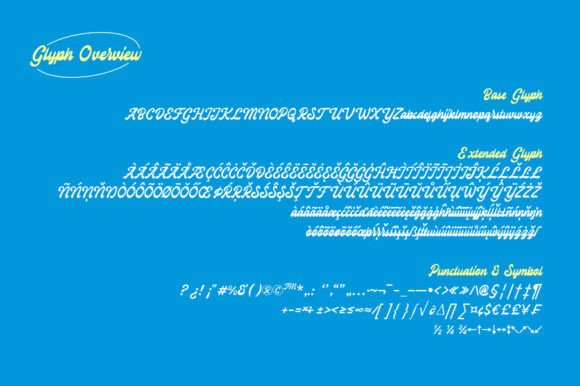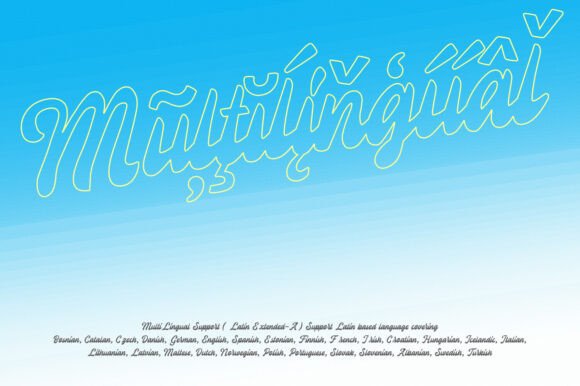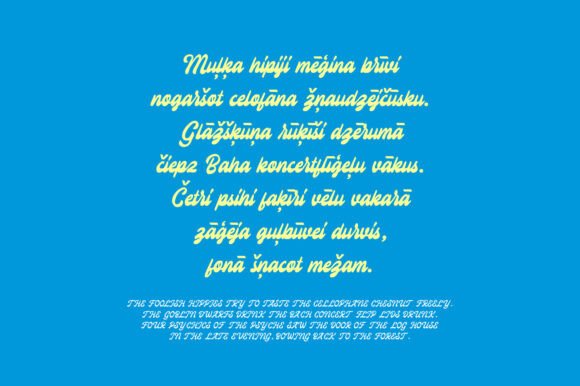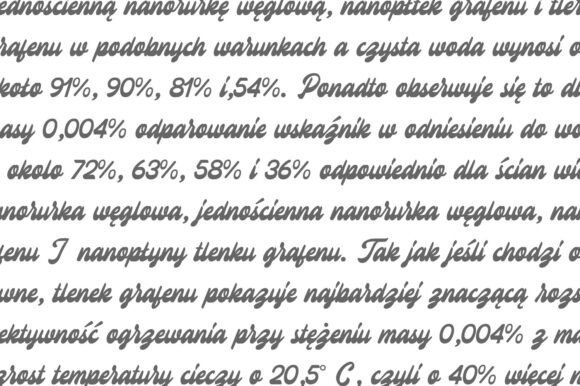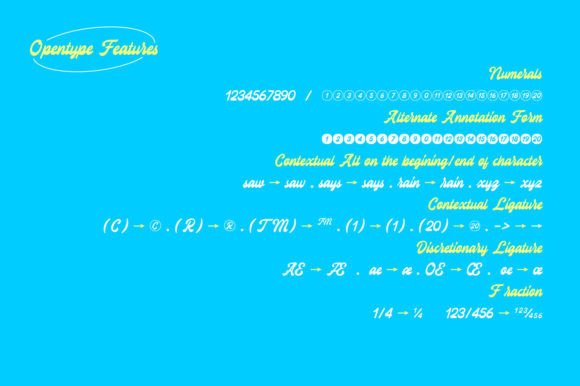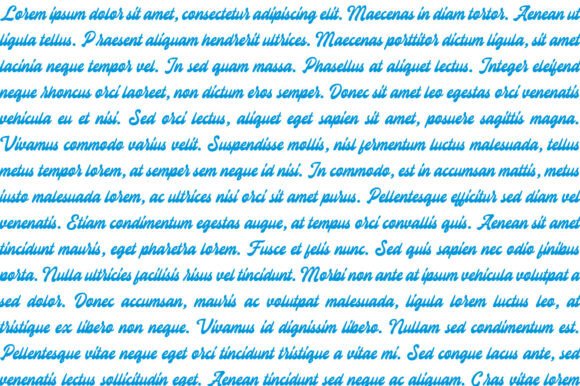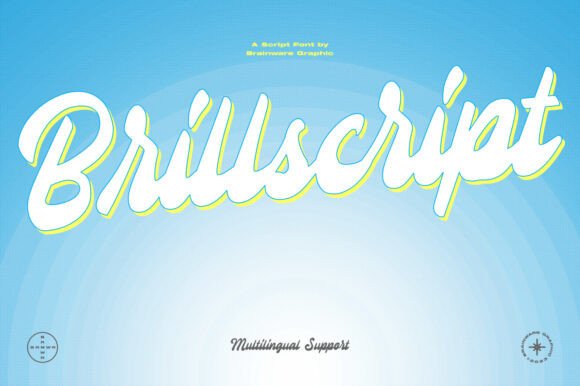
Discover the Charm of Brillscript Font: A Vintage-Style Handwritten Classic
In the world of typography, few fonts manage to capture the essence of nostalgia and classic charm as effectively as Brillscript. This vintage-style handwritten font has become a favorite among designers and crafters alike, and for good reason. Brillscript exudes a timeless appeal that is perfect for projects requiring a touch of retro sophistication. Whether you’re creating vintage-themed invitations, logos, packaging, or signage, Brillscript is the ideal choice for adding a dash of elegance and authenticity to your designs.
The Beauty of Old-Fashioned Penmanship
Brillscript’s unique charm lies in its ability to combine the beauty of old-fashioned penmanship with a sense of authenticity. The font’s intricate strokes, flowing connections, and carefully crafted letterforms evoke a sense of nostalgia, transporting us back to an era of handwritten letters, vintage posters, and classic typography. With Brillscript, you can add a personal touch to your designs, making them feel both historic and timeless.
Perfect for Vintage-Themed Projects
Brillscript’s vintage appeal makes it an excellent choice for a wide range of projects, including:
- Vintage-themed invitations: Create beautiful, one-of-a-kind invitations for weddings, parties, and special events that exude a sense of nostalgia and sophistication.
- Logos and branding: Add a touch of classic charm to your brand’s identity with a custom logo that incorporates Brillscript’s elegant, handwritten style.
- Packaging and product design: Give your products a unique, retro flair with Brillscript, perfect for food labels, wine bottles, and other specialty items.
- Signage and display: Create eye-catching signs, posters, and displays that showcase Brillscript’s beautiful, flowing script.
Why Designers and Crafters Love Brillscript
So, what makes Brillscript a favorite among designers and crafters? Here are just a few reasons:
- Unique and distinctive: Brillscript’s vintage style sets it apart from more modern, generic fonts, adding a touch of personality to your designs.
- Highly versatile: Whether you’re creating digital or print materials, Brillscript adapts seamlessly to various design applications.
- Elegant and sophisticated: Brillscript’s classic charm makes it perfect for projects requiring a level of sophistication and refinement.
- Easy to read and understand: Despite its ornate style, Brillscript remains highly legible, ensuring your message is conveyed clearly and effectively.
Tips for Using Brillscript Effectively
To get the most out of Brillscript, here are some tips to keep in mind:
- Use it sparingly: Brillscript’s impact is greatest when used in moderation. Balance it with simpler fonts to create visual interest and hierarchy.
- Experiment with colors and textures: Enhance Brillscript’s vintage appeal by pairing it with earthy tones, distressed textures, and other design elements that evoke a sense of nostalgia.
- Pay attention to font sizes: Brillscript’s intricate details can be lost at small font sizes. Use it at larger sizes to showcase its beauty and elegance.
Brillscript is a true classic in the world of typography, offering a unique blend of vintage charm, elegance, and sophistication. Whether you’re a designer, crafter, or simply someone who appreciates beautiful typography, Brillscript is an excellent choice for adding a touch of retro flair to your projects. With its timeless appeal, versatility, and ease of use, Brillscript is sure to become a staple in your design toolkit.
So why not give Brillscript a try? Discover the charm of this vintage-style handwritten font and bring a touch of classic sophistication to your designs.